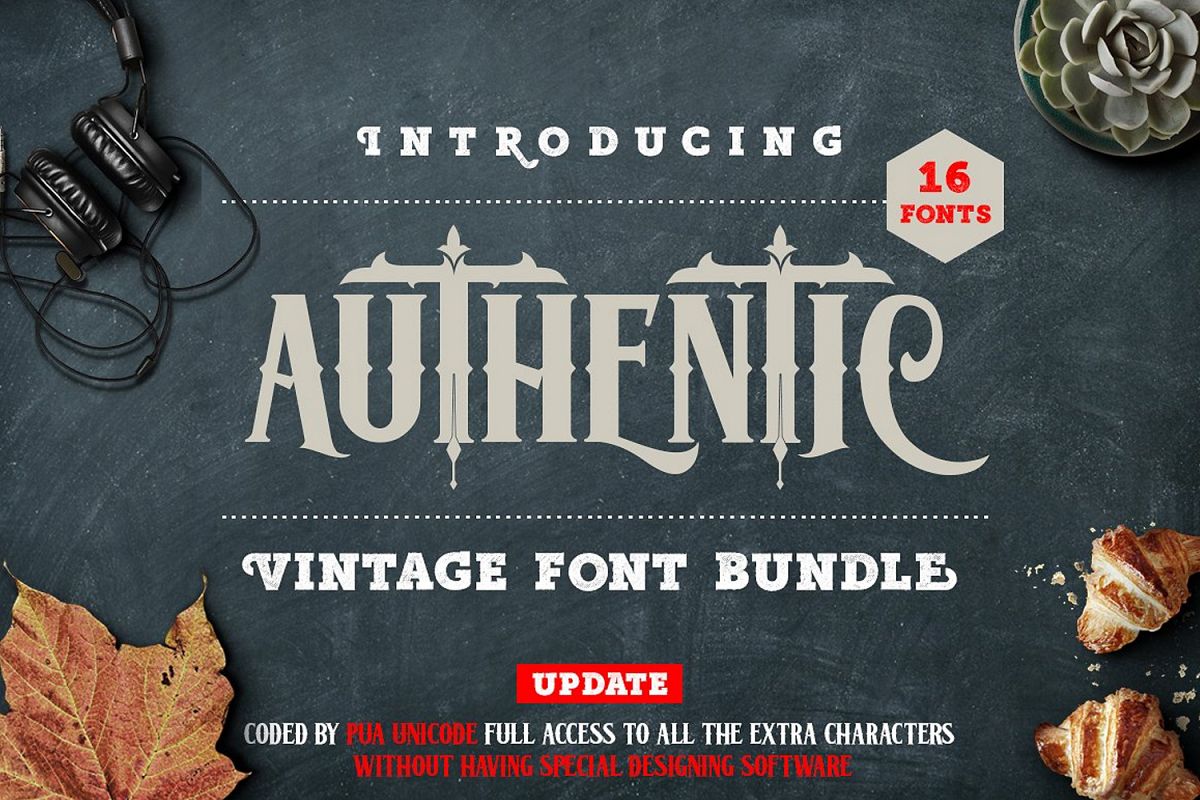
Authentic Vintage Font Bundle
New bundle from lostvoltype foundry, this bundle is great and perfect
for your vintage project. included 16 font from 8 family fonts.
The Bundle included the following item :
• Mutiara Vintage
• Mutiara Typeface
• Arsemith
• Maroline Fontpack
• Lost Volution
• Aliva Font
• Stonebangs Typeface
• Herline Typeface
Completely with PUA Unicode, so you can access all alternate without having